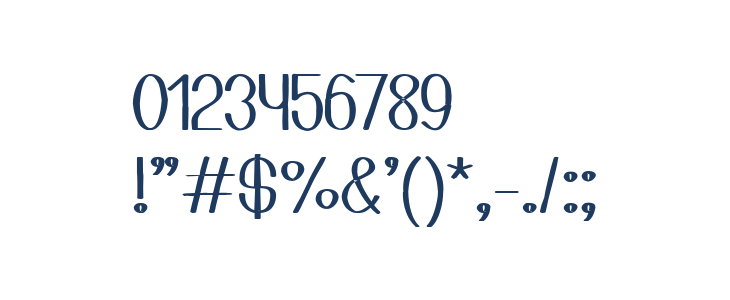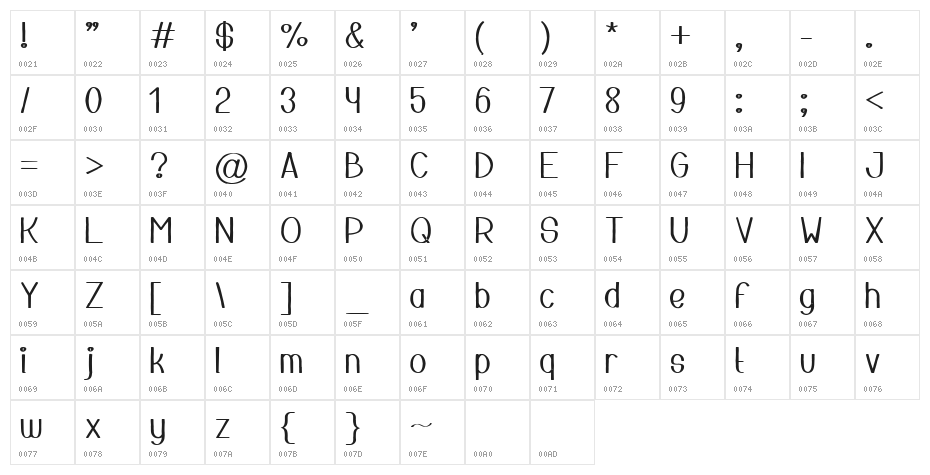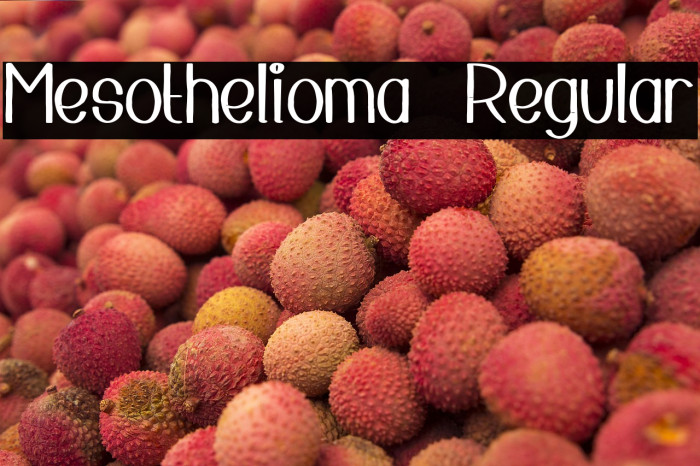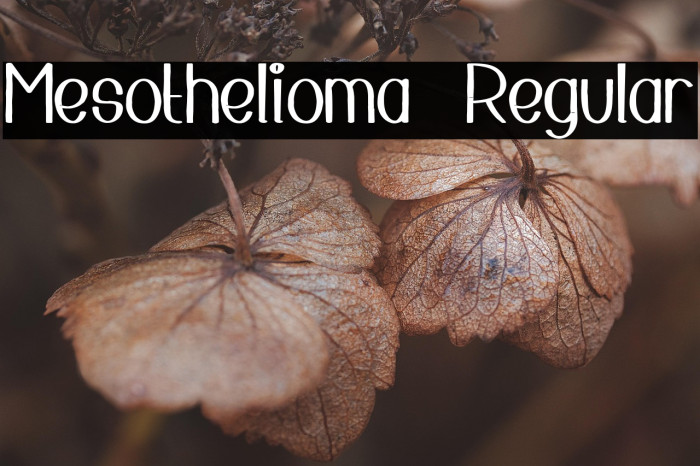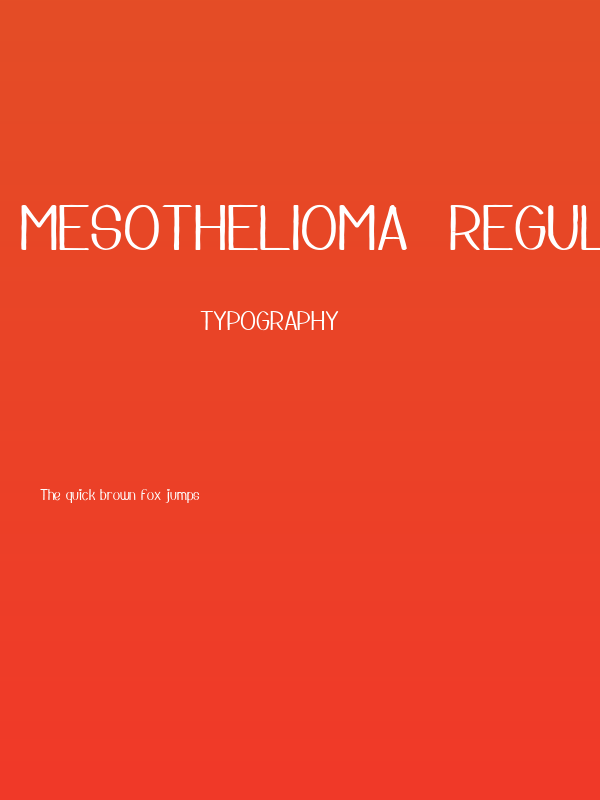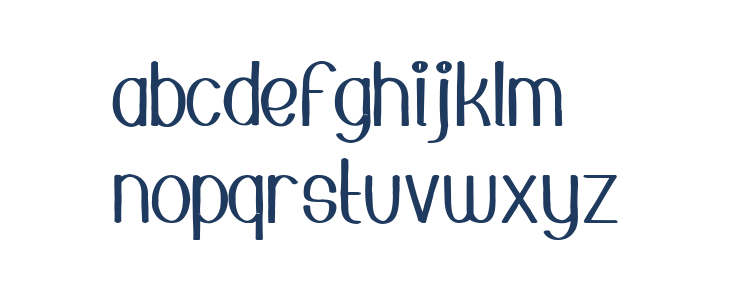
This font features a playful and casual handwritten style with a unique blend of rounded and angular elements. The uppercase letters are tall and slightly narrow, giving a sense of elegance and modernity. The lowercase letters maintain a consistent flow with smooth curves and a slight slant, adding to the handwritten feel. The numbers are well-proportioned and align seamlessly with the overall style. Special characters are creatively designed, maintaining the font's distinctive personality. This font is versatile, suitable for projects that require a personal touch.
| Proposed Projects | Ideal for greeting cards, invitations, personal branding, and creative projects that require a friendly and approachable look. |